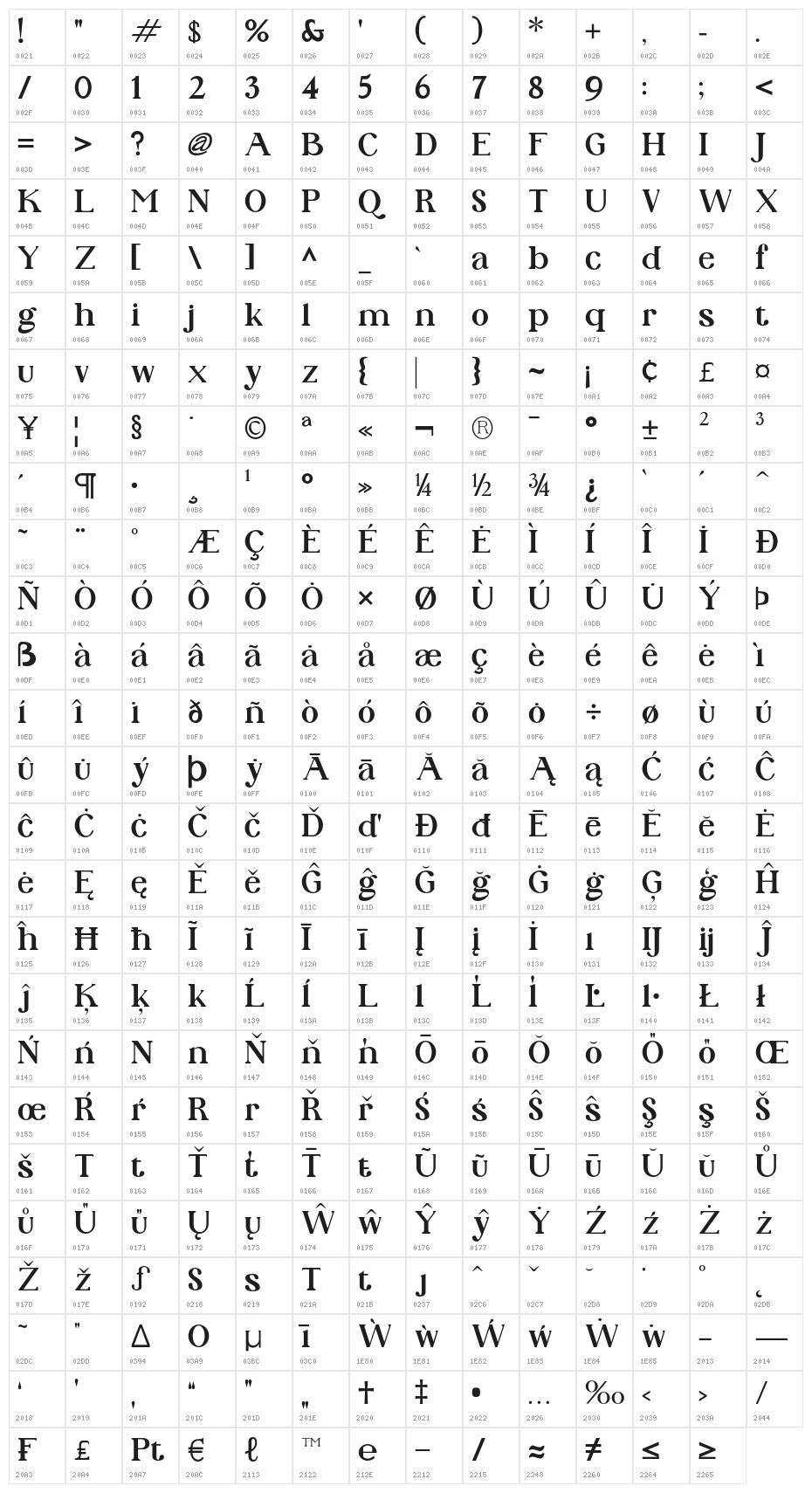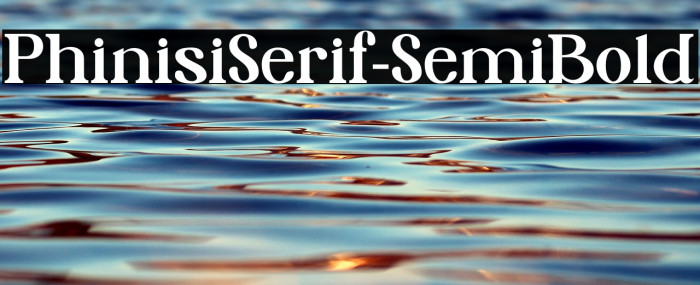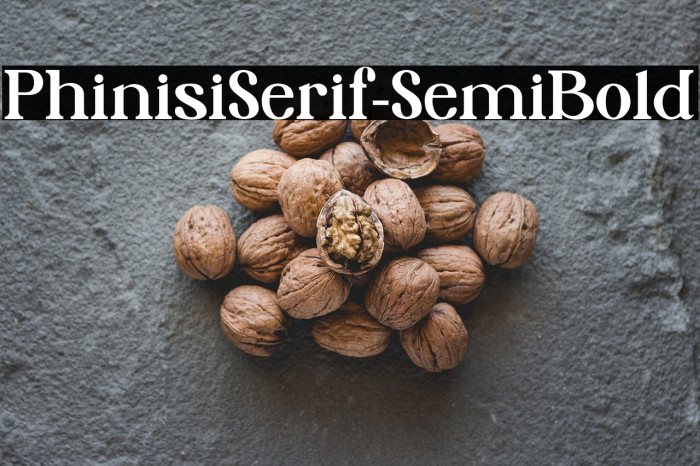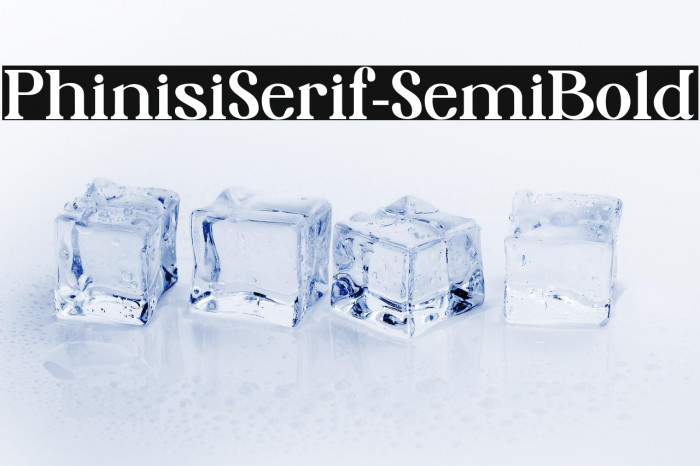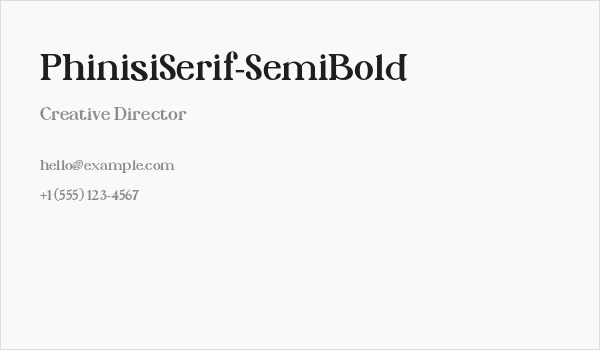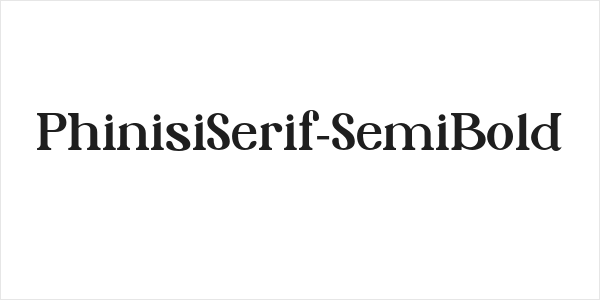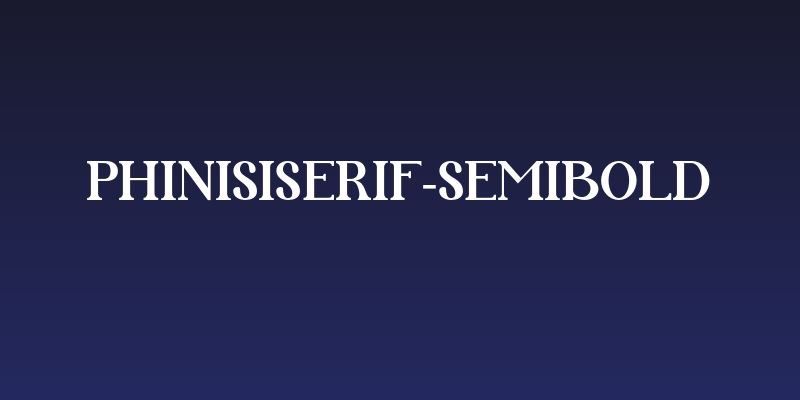
PhinisiSerif-SemiBold Font
PhinisiSerif-SemiBold Description
This serif typeface exudes a classic elegance with its semi-bold weight, offering a balanced and refined appearance. The characters are well-defined with a moderate contrast between thick and thin strokes, enhancing readability while maintaining a sophisticated look. The serifs are pronounced yet not overly exaggerated, providing a timeless quality that is both versatile and appealing. The font's structure is solid, with a slightly condensed width that allows for efficient use of space without compromising on clarity. The character spacing is normal, ensuring a harmonious flow of text. This font is ideal for projects that require a touch of tradition and formality, such as editorial design, book covers, and formal invitations.